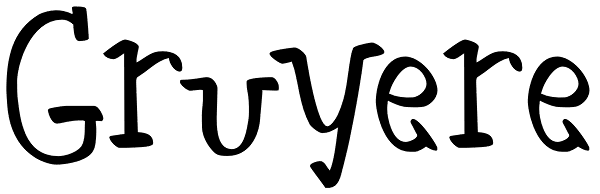
Gruyere
Gruyère is rich with character and always in good taste. Earthy and assertive, Gruyère adds distinctive flavor to every occasion.
Gruyere Font